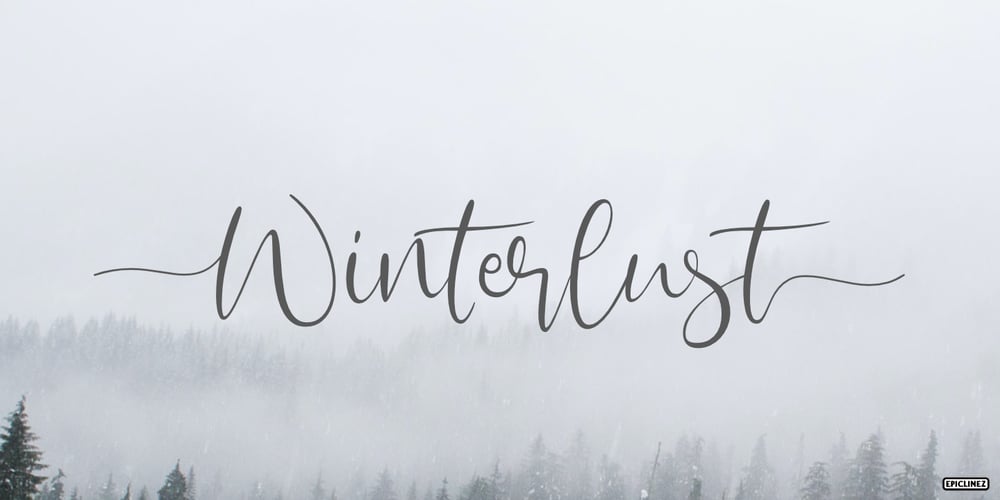
Winterlust
Winterlust font
Winterlust Font Family was designed by Aldy Sidik and published by Epiclinez. Winterlust contains 1 styles and family package options. Winterlust is a lovely and timeless handwritten font. It is the best choice for creating eye catching logos, branding and quotes. Every letter has a unique and beautiful touch, which will make your design come alive!